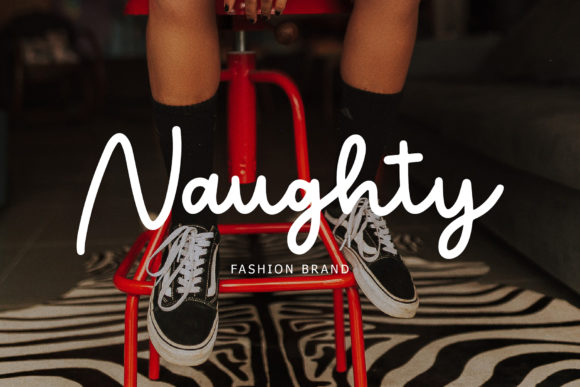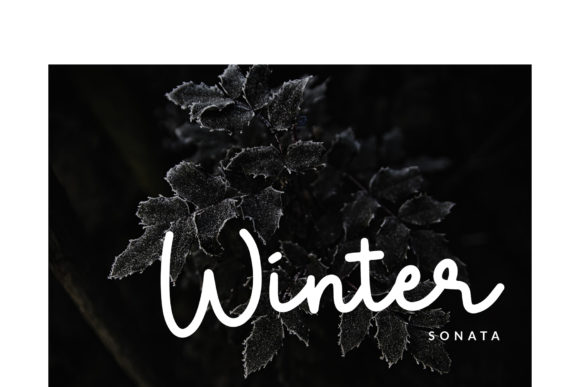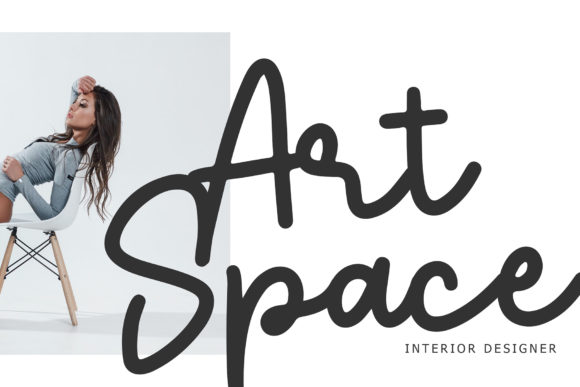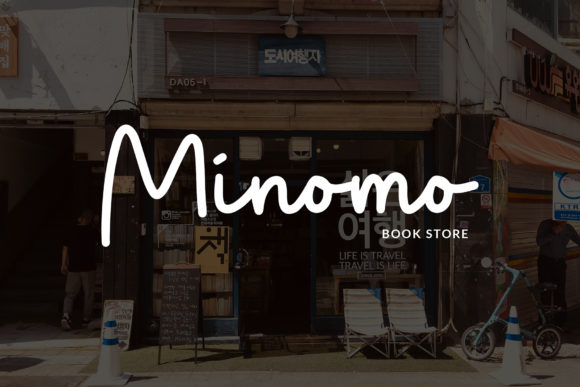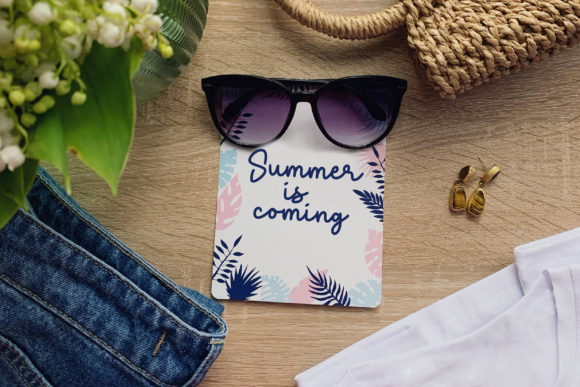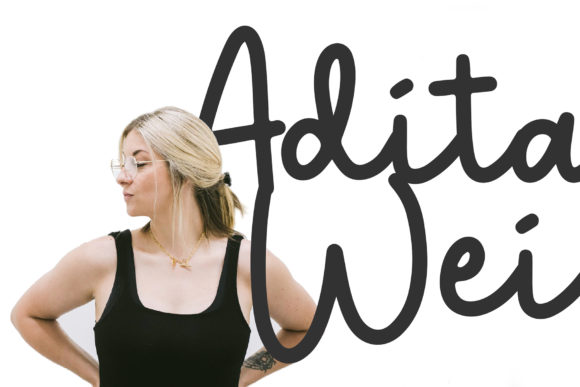
The Sweet Spot: Discovering the Beshan Font
I still remember the design project that led me to Beshan Font. I was working on a whimsical craft project, aiming for a friendly and approachable vibe, but struggling to find the perfect font. That’s when I stumbled upon Beshan – a sweet and modern handwritten font that instantly resonated with my design sensibilities. Its quirky, relaxed feel seemed to fit both formal and informal designs, making it an instant favorite.
Beshan Font: An Honest Review
• ✨ Unique, modern handwritten style that’s both sweet and quirky
• ✅ Highly legible, making it perfect for body text and headings
• ✅ Works well for both formal and informal designs, from wedding invites to craft projects
• ✅ Extensive OpenType features, including glyphs and stylistic alternates
While Beshan Font is incredibly versatile, there are a few things to keep in mind:
• ⚠️ Some characters may appear a bit narrow or wide, so kerning might be necessary for optimal results
• 🤔 Limited availability of uppercase letters with diacritics
The Story Behind Beshan Font
Beshan Font was designed with the intention of creating a unique, modern handwritten font that captures the essence of a relaxed, quirky feel. The designer aimed to craft a font that’s both sweet and approachable, making it perfect for a wide range of design projects.
Font Name Beshan Font
Author Giant Design
Q: What type of designs is Beshan Font best suited for?
A: Beshan Font is versatile and can be used for both formal and informal designs, from wedding invitations to craft projects, social media graphics, and more.
Q: Does Beshan Font support OpenType features?
A: Yes, Beshan Font includes extensive OpenType features, such as glyphs and stylistic alternates, which can be accessed in compatible software.